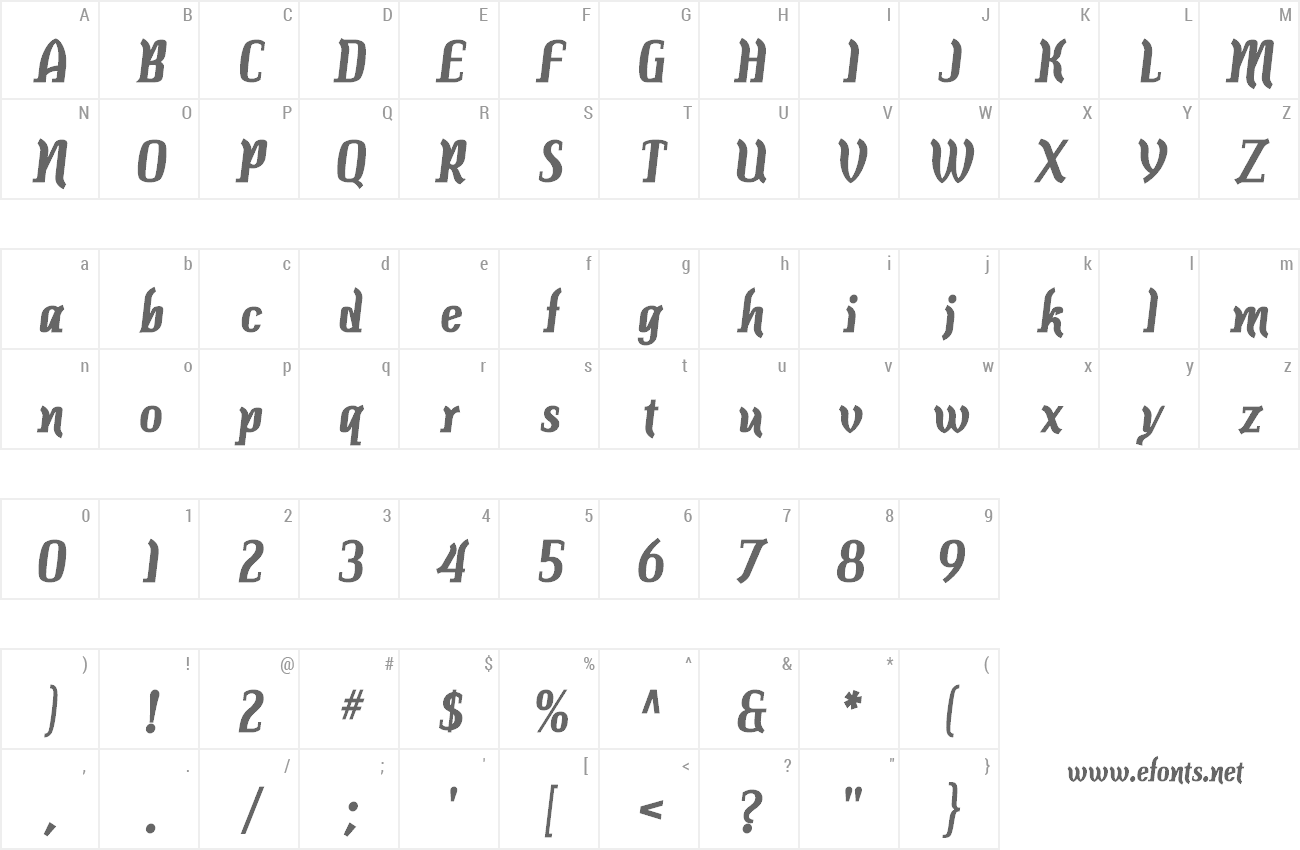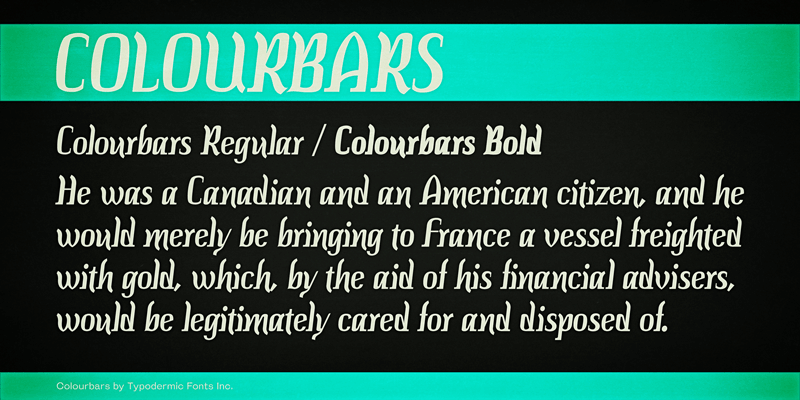
Colourbars is a swoopy headliner with a boyish slant. This font includes a license that allows free commercial use: sometimes referred to as a desktop license. This allows you to install the font on a computer and use it to create posters, web graphics, game graphics, t-shirts, videos, signs, logos and more. Read the license agreement for details. If you'd like to embed this font in an app, ebook, on the web or anything that's not covered by the desktop license agreement, visit the link below. You'll find distributors who offer different types of licenses or you can contact me for help. http://typodermicfonts.com/colourbars/ |